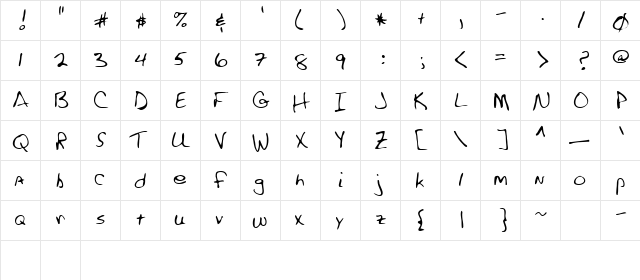
Ross Regular Font Preview
Ross Regular
Design Context for Ross Typeface
Ross is a composed and adaptable typeface that performs quietly and consistently across a wide range of design contexts.